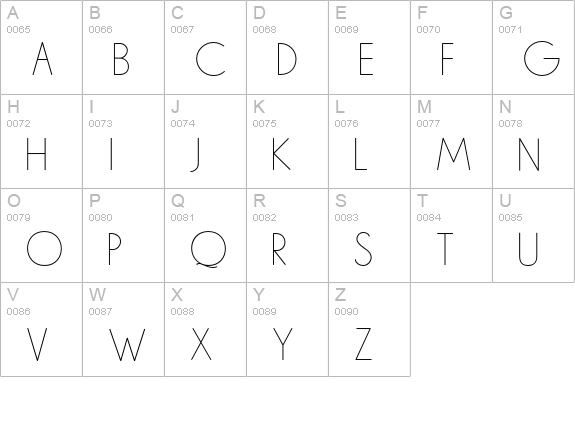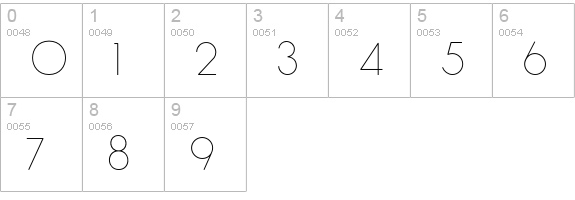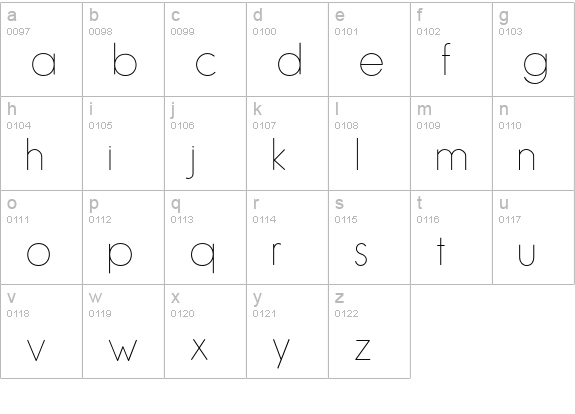
LCHairline Font Details
Introducing LCHairline, a stunning and versatile font that is here to elevate your design projects to new heights. With its sleek, modern lines and impeccable attention to detail, LCHairline is the perfect choice for capturing attention and making a lasting impression. This incredible font boasts a wide range of characters, from elegant uppercase letters to stylish lowercase variations, ensuring that you have everything you need to create visually captivating typography. The carefully crafted curves and clean edges of LCHairline lend a sense of sophistication and professionalism to any design, making it ideal for a variety of projects, from branding and logos to advertisements and website headers. One of the most remarkable aspects of LCHairline is that it is absolutely free! Yes, you read that right - this exceptional font can be freely downloaded at FontsMarket.com, allowing you to enhance your creative endeavors without any cost. The creators of LCHairline believe in the power of accessible design resources, and that is why they have made this font available to everyone, regardless of budget or experience. Whether you are a seasoned designer or just starting out, LCHairline's user-friendly nature ensures a smooth and effortless experience. Its compatibility with various design software makes it a versatile tool for professionals and hobbyists alike. So, whether you are working on a personal project or a client's brand, LCHairline will always deliver exceptional results. With its timeless elegance and remarkable versatility, LCHairline is the font that will take your designs to new heights. Download this magnificent font today at FontsMarket.com and experience the freedom of creativity that comes with LCHairline. Don't miss out on this opportunity to enhance your designs with a font that is as beautiful as it is free.